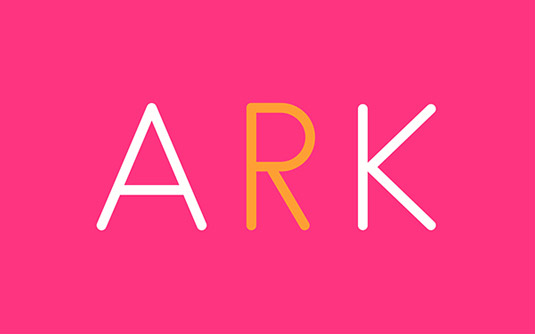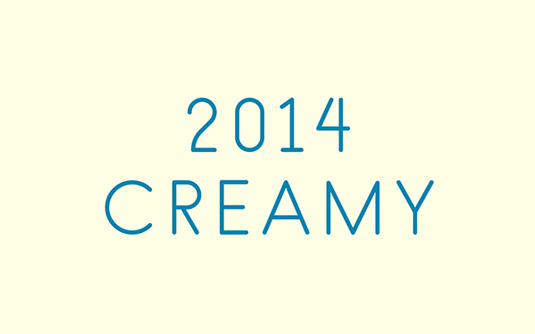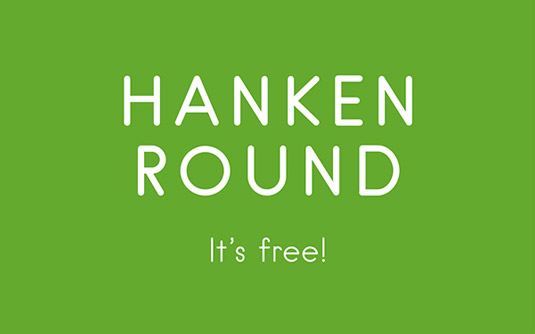
Font of the day: Hanken Round
Every day we showcase the best fonts on the web. Today it's Hanken Round by Alfredo Marco Pradil, which is totally free to download.
Hanken Round by Alfredo Marco Pradil
A typeface crafted with love, Hanken Round is a geometric sans-serif font, designed for the team at Hanken Design Co by creative designer Alfredo Marco Pradil. And it's free to download in exchange for a tweet!